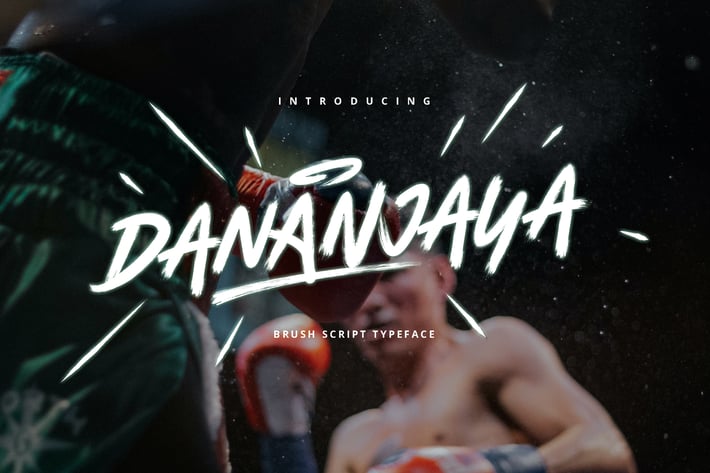
Dananjaya - Brush Script Typeface
Dananjaya is perfect to use for Logotype, Letterhead, Poster, Apparel Design, Label and etc.
The alternative characters were divided into several features such as Stylistic Alternates and Ligature.